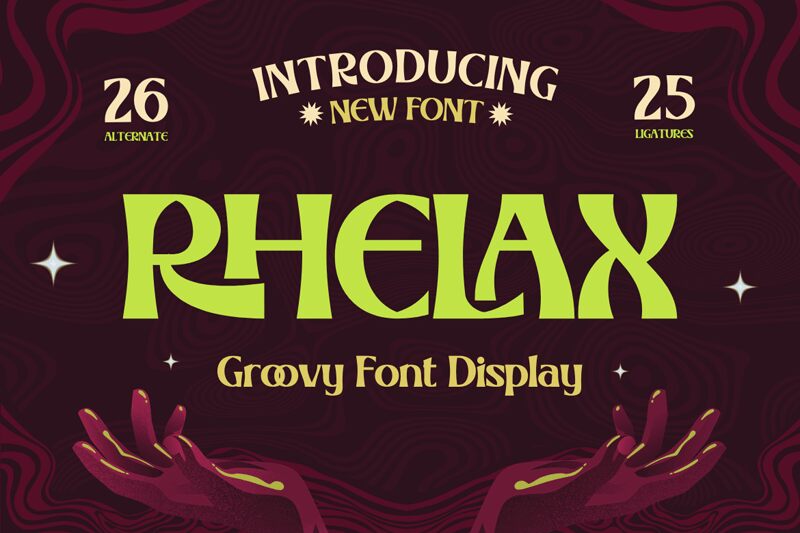
Rhelax, the captivating display font crafted by Twinletter, exudes a groovy and dynamic energy. Its bold, playful letterforms possess a vintage charm, blending retro flair with a modern sensibility. The sculptural, angular design creates a striking visual impact, making Rhelax a standout choice for attention-grabbing titles, logos, and display text. This font's unique character effortlessly evokes a sense of nostalgia and a touch of whimsy, making it an alluring option for a wide range of design projects.
The versatile Rhelax font lends itself beautifully to vibrant, attention-grabbing applications. Its bold, expressive style makes it an excellent choice for headlines, event branding, album covers, and bold typographic statements. Rhelax's retro-inspired aesthetic also allows it to seamlessly integrate into vintage-inspired designs, vintage-themed events, or projects aiming to capture a groovy, retro-futuristic aesthetic. This font's distinctive personality can elevate a wide variety of design elements, from print media to digital interfaces, ensuring a captivating visual experience.